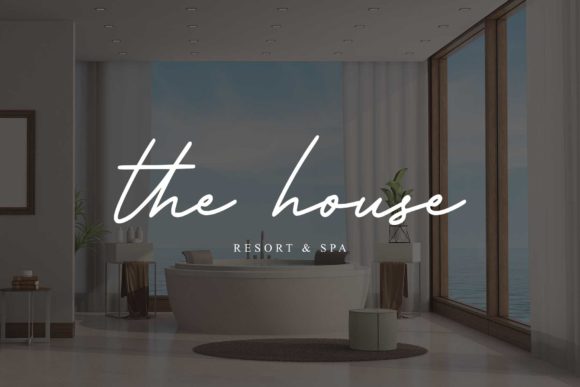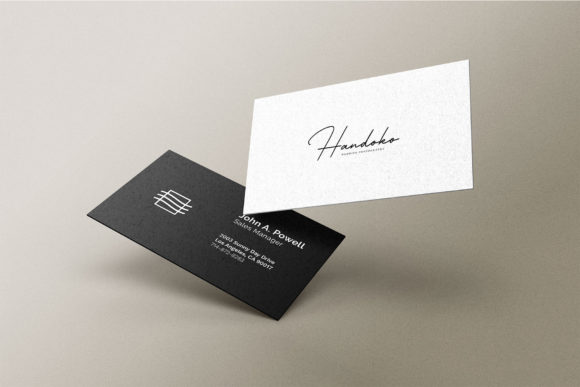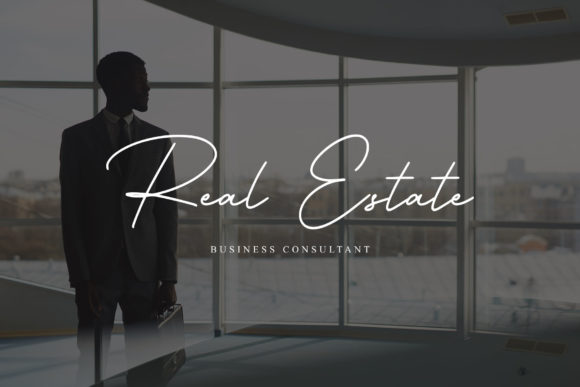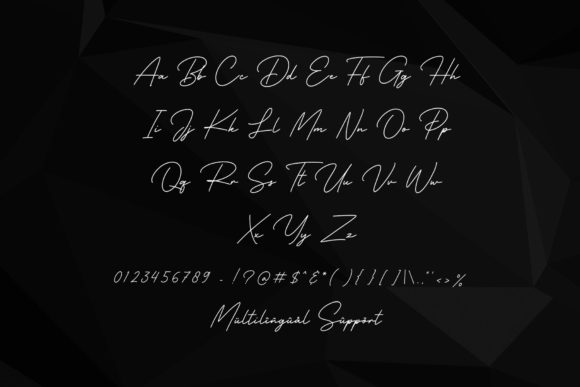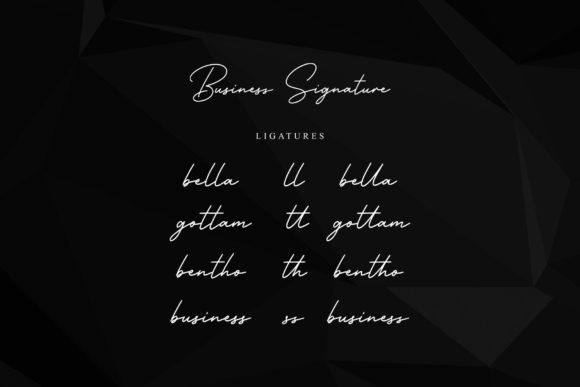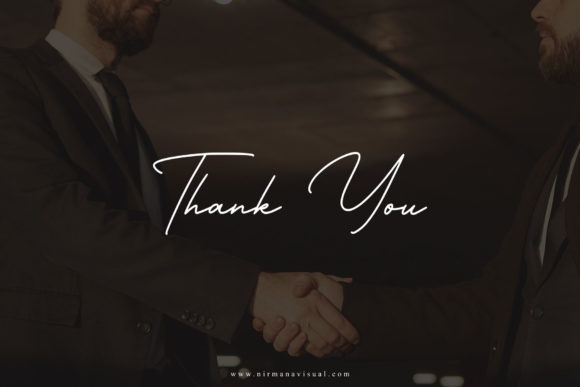
Introducing Business Signature: The Ultimate Font for Elegant Designs
In the world of design, fonts play a crucial role in conveying the tone and personality of a brand. A well-chosen font can elevate a design from ordinary to extraordinary, making it essential for designers and crafters to select the right one for their projects. If you’re looking for a stylish and delicate script font that adds a touch of sophistication to your designs, look no further than Business Signature.
What is Business Signature?
Business Signature is a beautiful script font that boasts a clean, thin, and smooth vibe. Its elegant strokes and refined features make it perfect for adding a touch of luxury to any design. Whether you’re working on a branding project, creating wedding invitations, or designing social media graphics, Business Signature is sure to impress.
Key Features of Business Signature
- Stylish and Delicate: Business Signature’s script font is designed to add a touch of elegance to your designs. Its delicate strokes and refined features make it perfect for creating sophisticated and high-end designs.
- Clean and Thin: The font’s clean and thin lines ensure that it remains legible even at small sizes, making it perfect for use in a variety of design applications.
- Smooth and Refined: Business Signature’s smooth and refined features ensure that it looks great in both digital and print formats.
- Versatile: This font is incredibly versatile and can be used in a wide range of design projects, from branding and advertising to packaging and more.
Why Choose Business Signature?
With so many fonts available, why should you choose Business Signature for your next design project? Here are just a few reasons:
- Unique and Eye-Catching: Business Signature’s unique and eye-catching design ensures that your projects will stand out from the crowd.
- Elegant and Sophisticated: The font’s elegant and sophisticated design makes it perfect for creating high-end designs that exude luxury and refinement.
- Easy to Read: Despite its delicate nature, Business Signature remains easy to read, even at small sizes.
- High-Quality: This font is designed to deliver high-quality results, ensuring that your designs look great in both digital and print formats.
How to Use Business Signature in Your Designs
Business Signature is incredibly easy to use and can be incorporated into a wide range of design projects. Here are a few ideas to get you started:
- Branding and Logo Design: Use Business Signature to create elegant and sophisticated logos that reflect your brand’s personality.
- Wedding Invitations: Add a touch of luxury to your wedding invitations with this beautiful script font.
- Social Media Graphics: Use Business Signature to create eye-catching social media graphics that showcase your brand’s personality.
- Packaging Design: Add a touch of elegance to your packaging designs with this versatile font.
In conclusion, Business Signature is a stylish and delicate script font that is sure to elevate your designs to the next level. Its clean, thin, and smooth vibe makes it perfect for creating elegant and sophisticated designs that exude luxury and refinement. Whether you’re a designer or crafter, this font is sure to become a staple in your design toolkit. So why wait? Download Business Signature today and start creating stunning designs that showcase your brand’s personality.